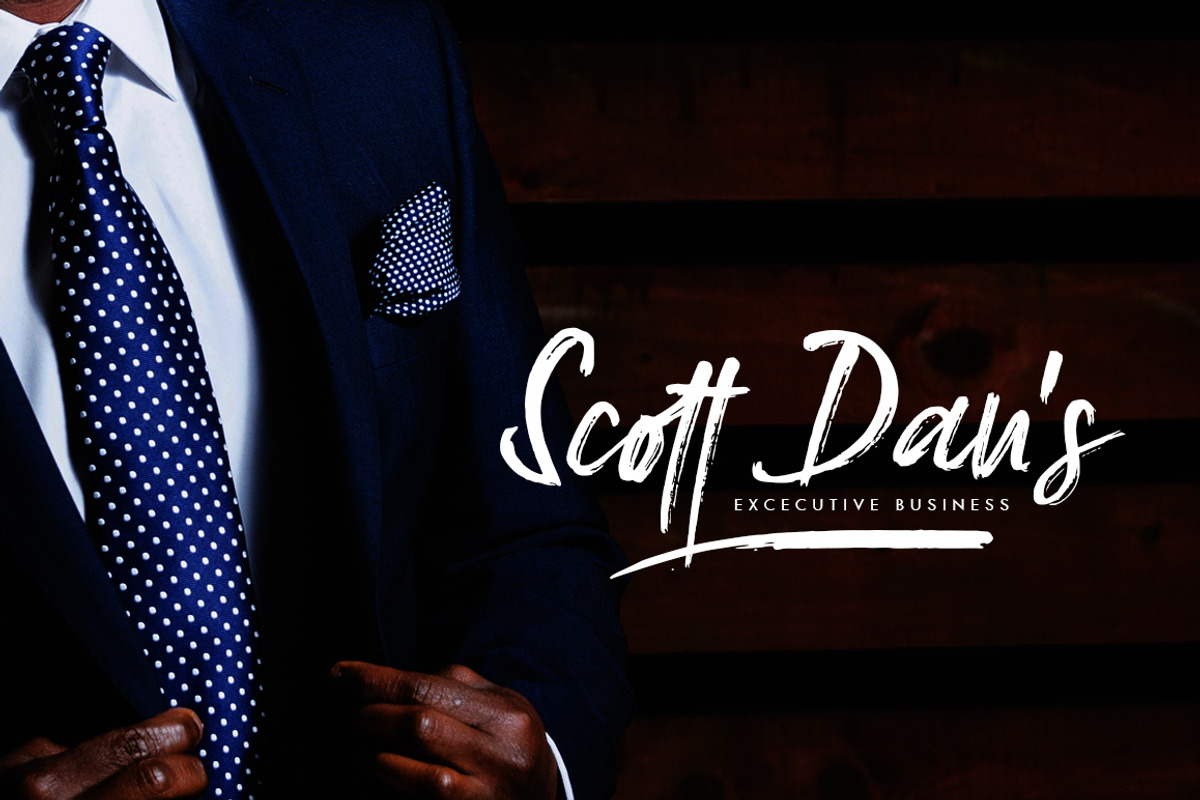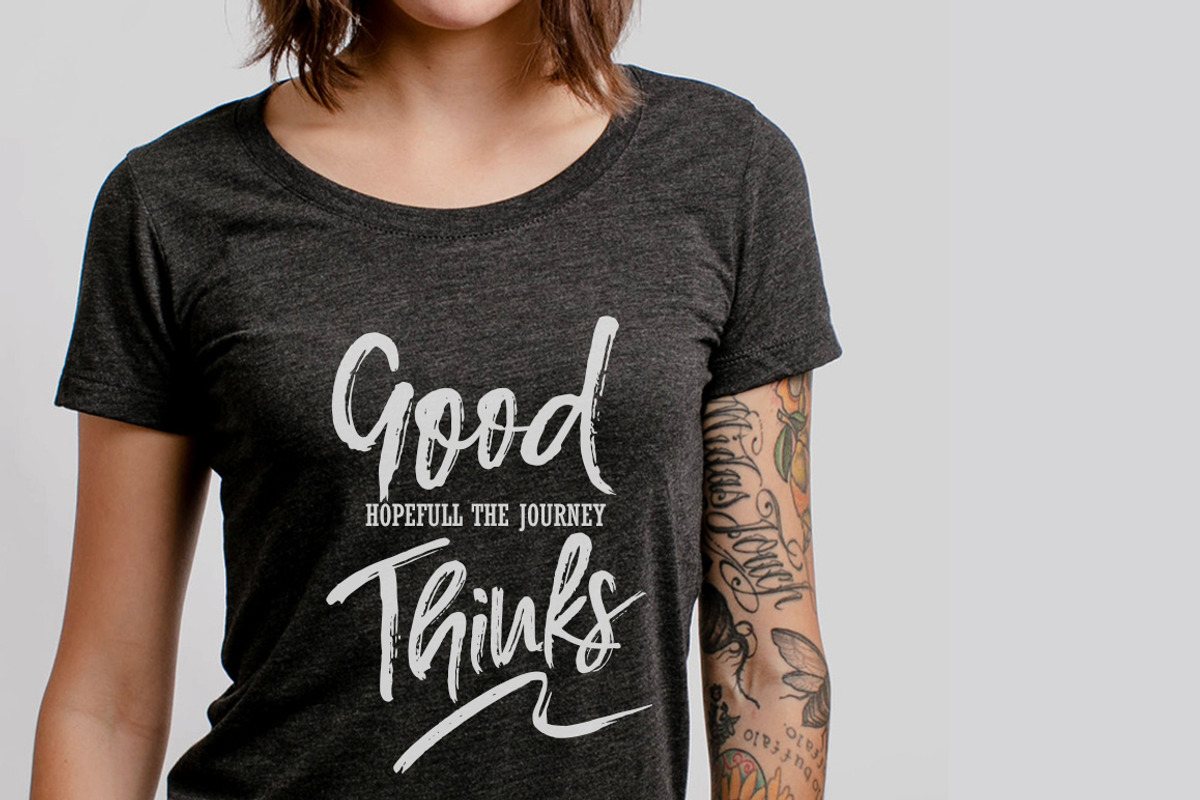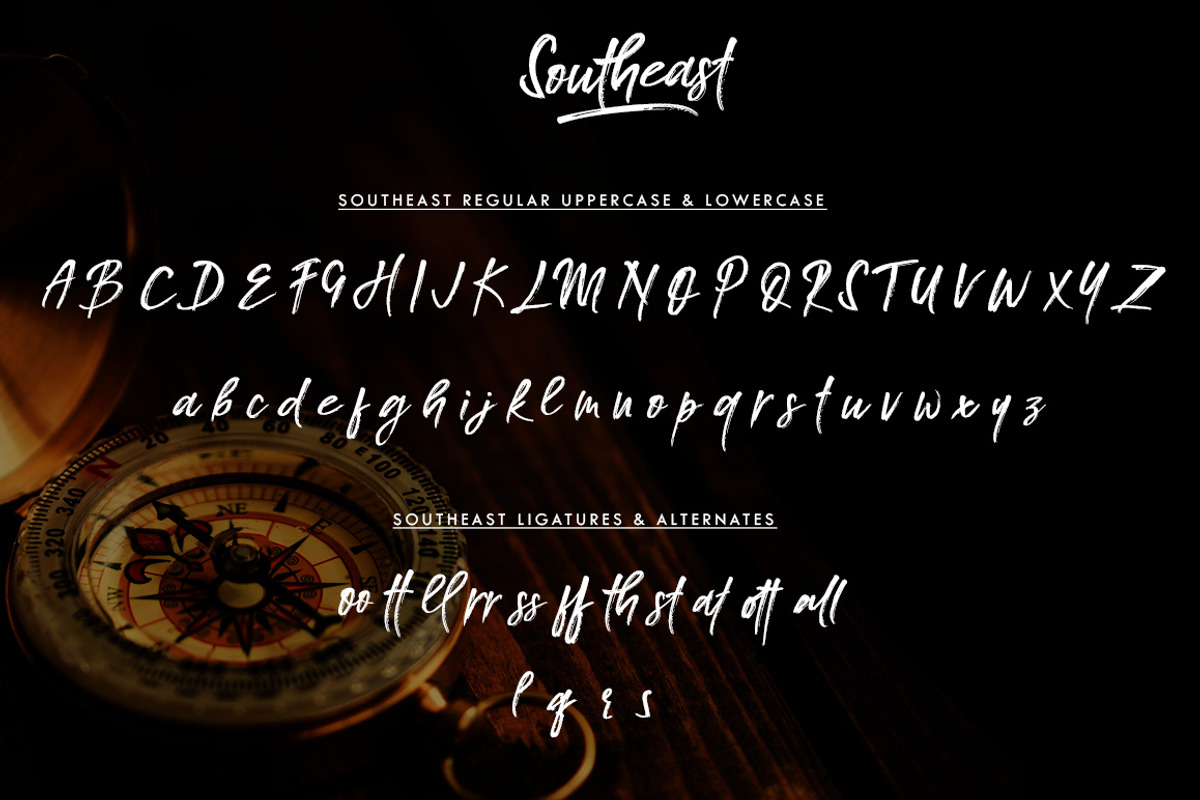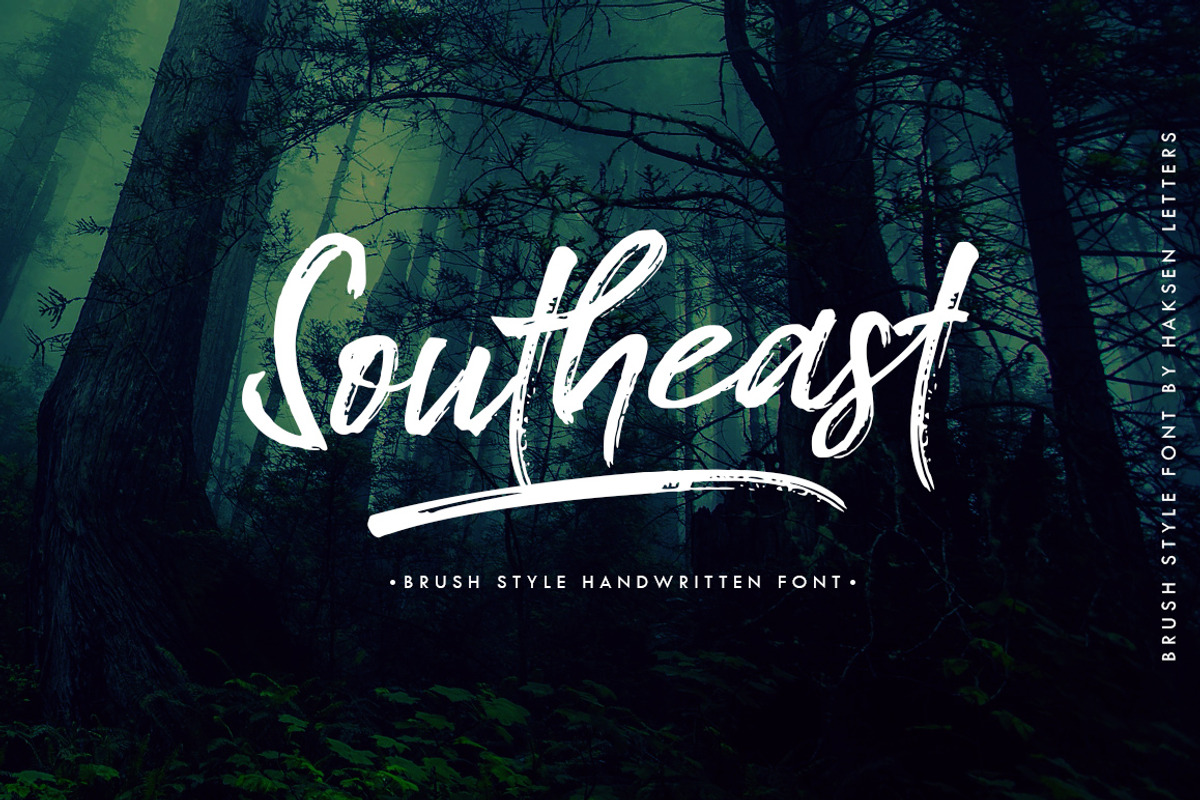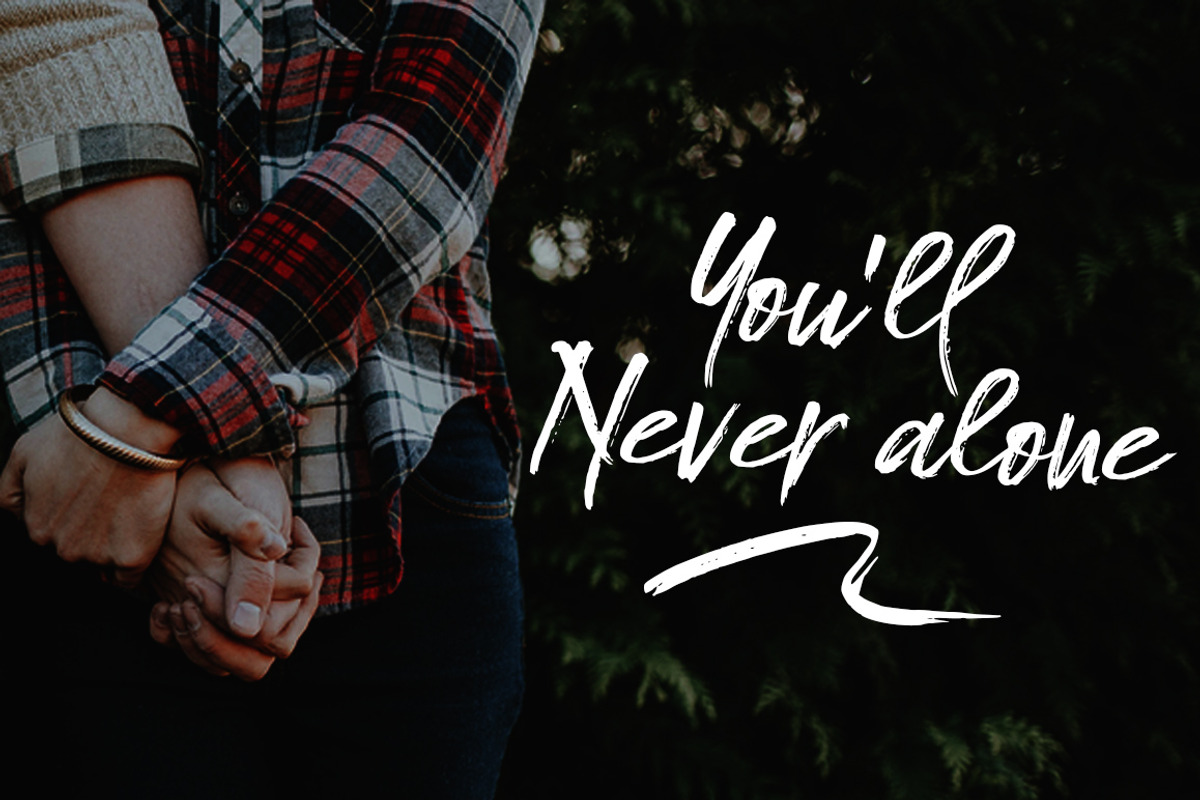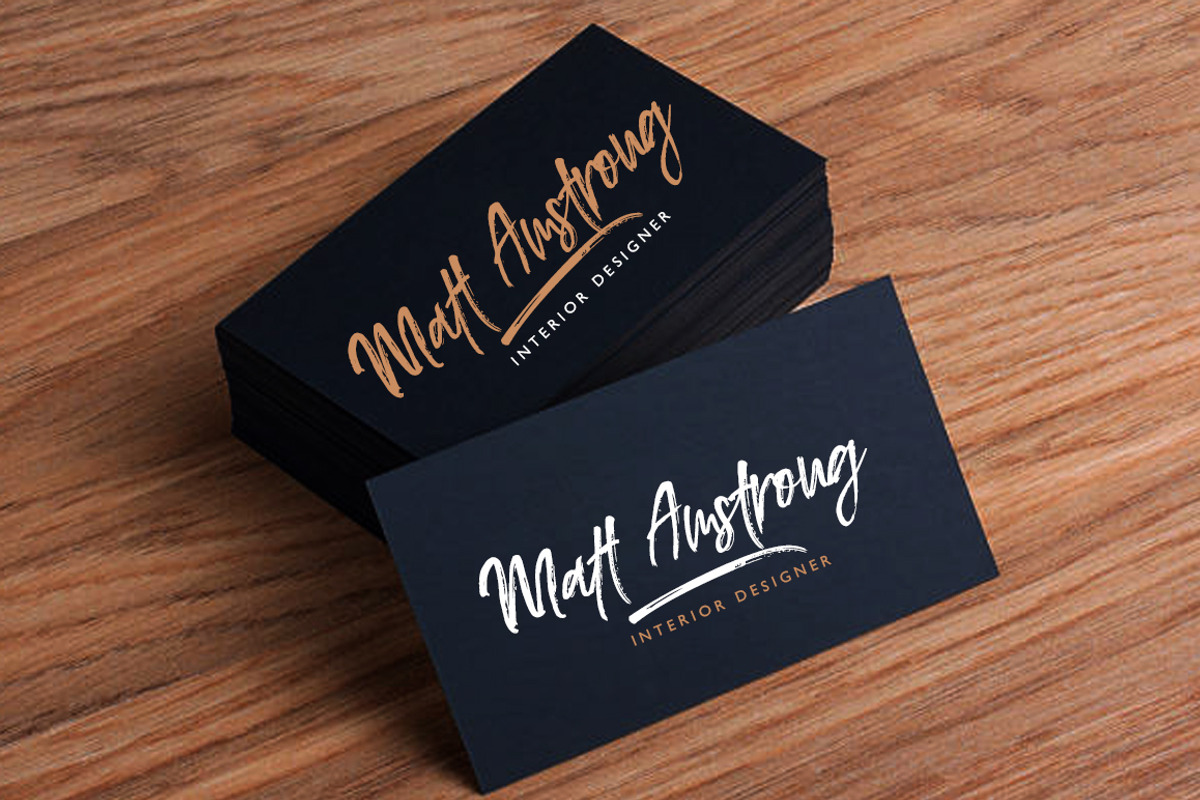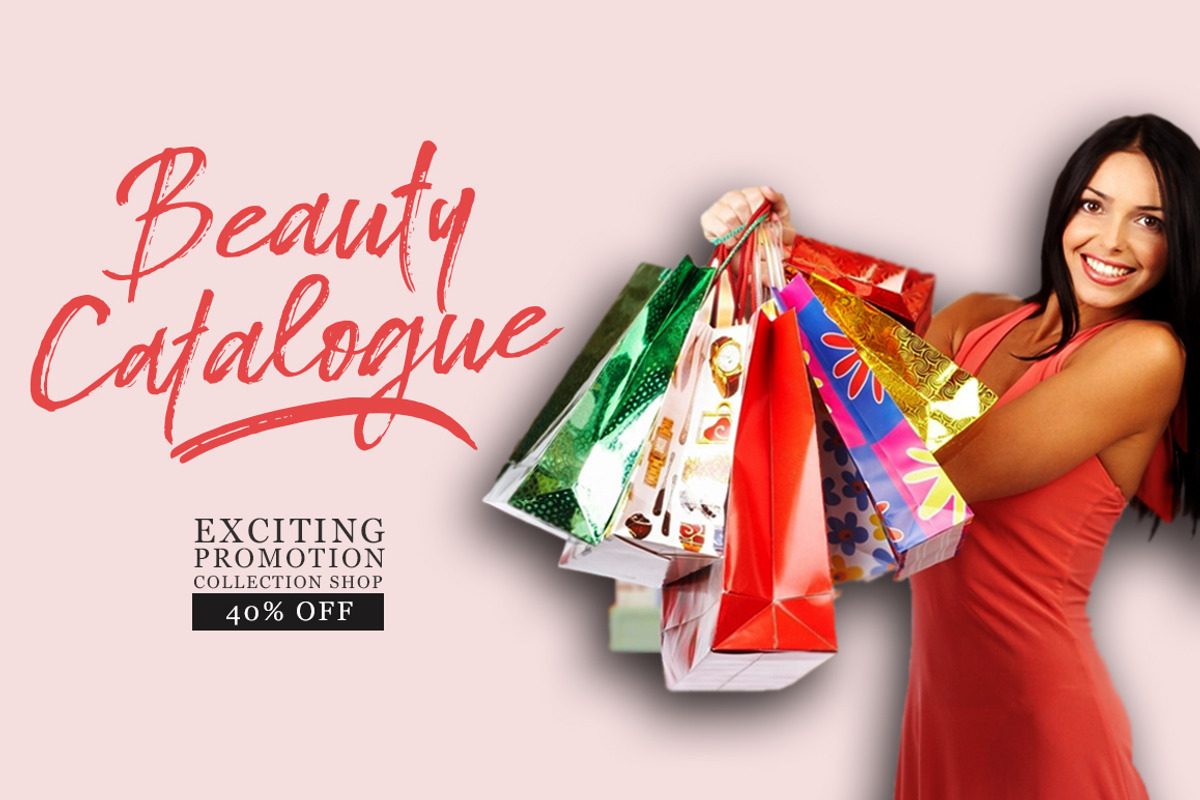
Southeast Brush Font
I Would like to introduce my New Product "Southeast" The new fresh handmade brush script font. Very suitable for greeting cards, branding materials, business cards, quotes, posters, and more! This font are perfect for all brand :)
UpperCase & Lowercase Numerals & Punctuations Ligatures Multilingual characters (AÀÁÂÃÄÅCÇDÐEÈÉÊËIÌÍÎÏNÑOØÒÓÔÕÖUÙÜÚÛWYÝŸŸ ÆŒßÞàáâãäåæçèéêëìíîïðñòóôõöøùúûüýÿ)